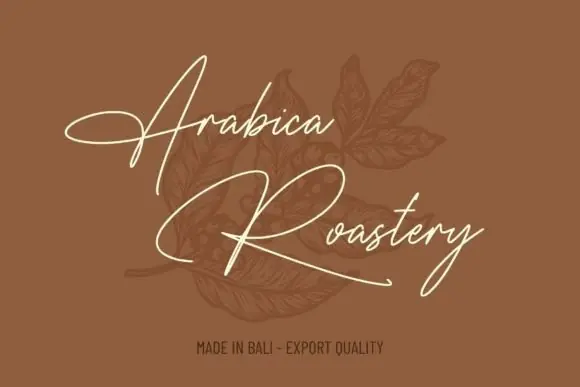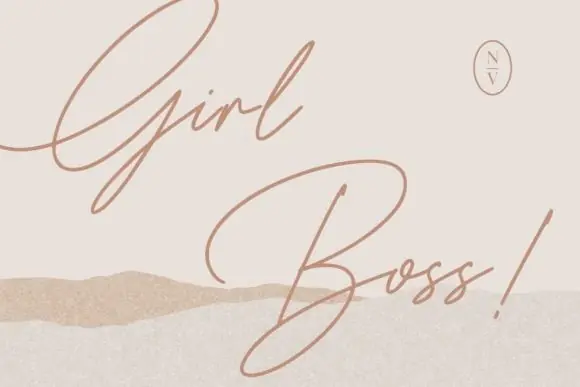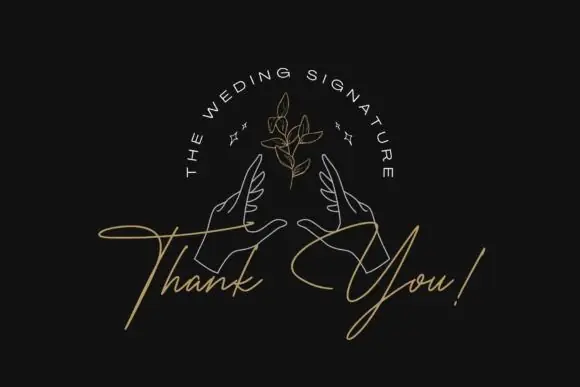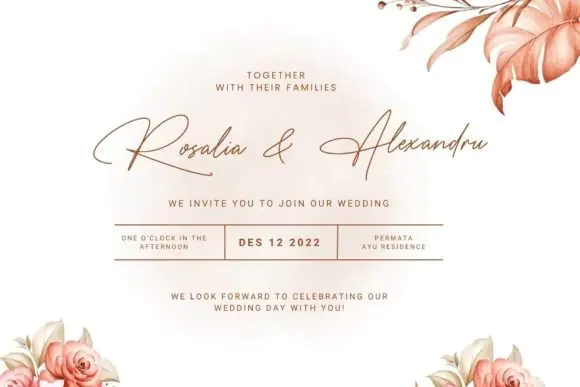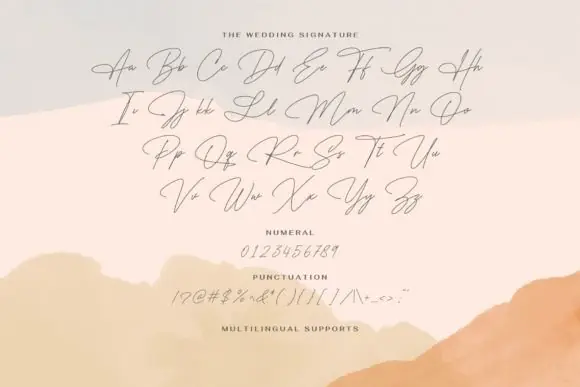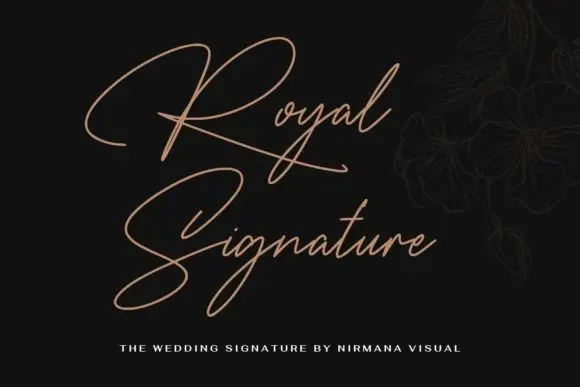
Create beautiful, polished, and elegant designs with The Wedding Signature Font, a dazzling script font crafted with neat details and a refined handwritten look. This font is perfect for projects that need a graceful, romantic, and premium signature-style appearance.
The Wedding Signature Font works beautifully for wedding invitations, save-the-date cards, thank you cards, greeting cards, romantic quotes, logos, branding, business cards, product packaging, social media graphics, printable wall art, stationery, mugs, shirts, stickers, and other creative projects.
Its detailed script style gives your designs a luxurious and personal touch, making it a useful font for wedding designers, crafters, small business owners, digital product sellers, and creative professionals. Whether you are creating bridal stationery, elegant branding, or stylish gift items, this font can help enhance your final design with charm and sophistication.
The Wedding Signature Font is a wonderful addition to any font library and a beautiful choice for creating elegant, romantic, and eye-catching designs with a refined signature-style touch.